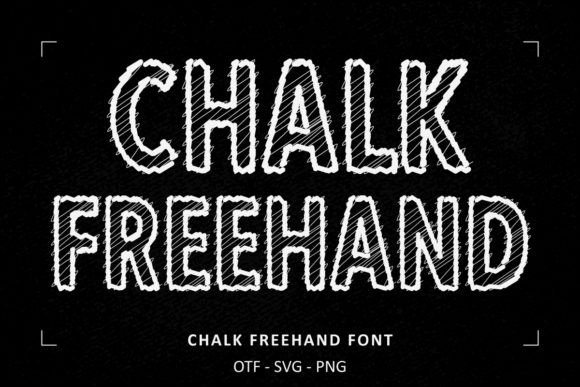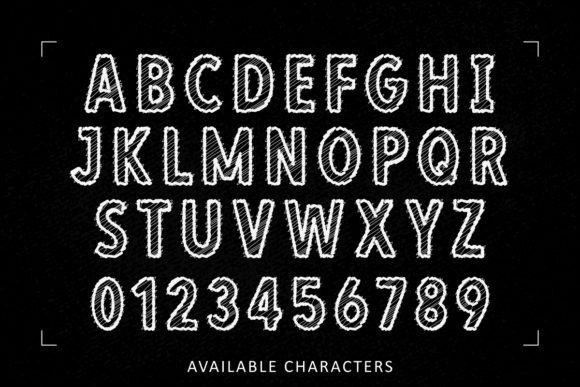
Chalk Sketch Collection Font
Chalk Sketch Collection Font gathers 8 eye-catching chalk fonts that look like they were drawn or written with a stick of chalk.These font files are perfect for a multitude of creative projects: T-shirts, phone cases, cards, bags, mugs, stickers, tumblers, and much more.Note: These fonts include characters A-Z, 0-9 (excluding punctuation marks).